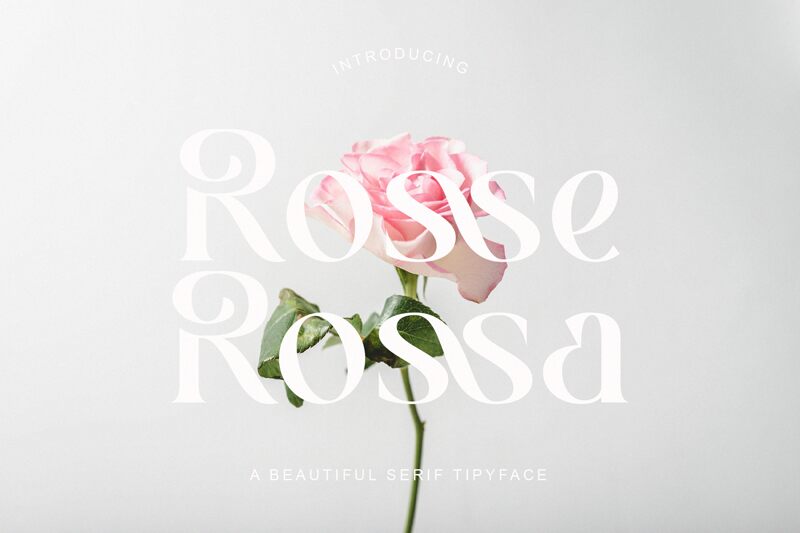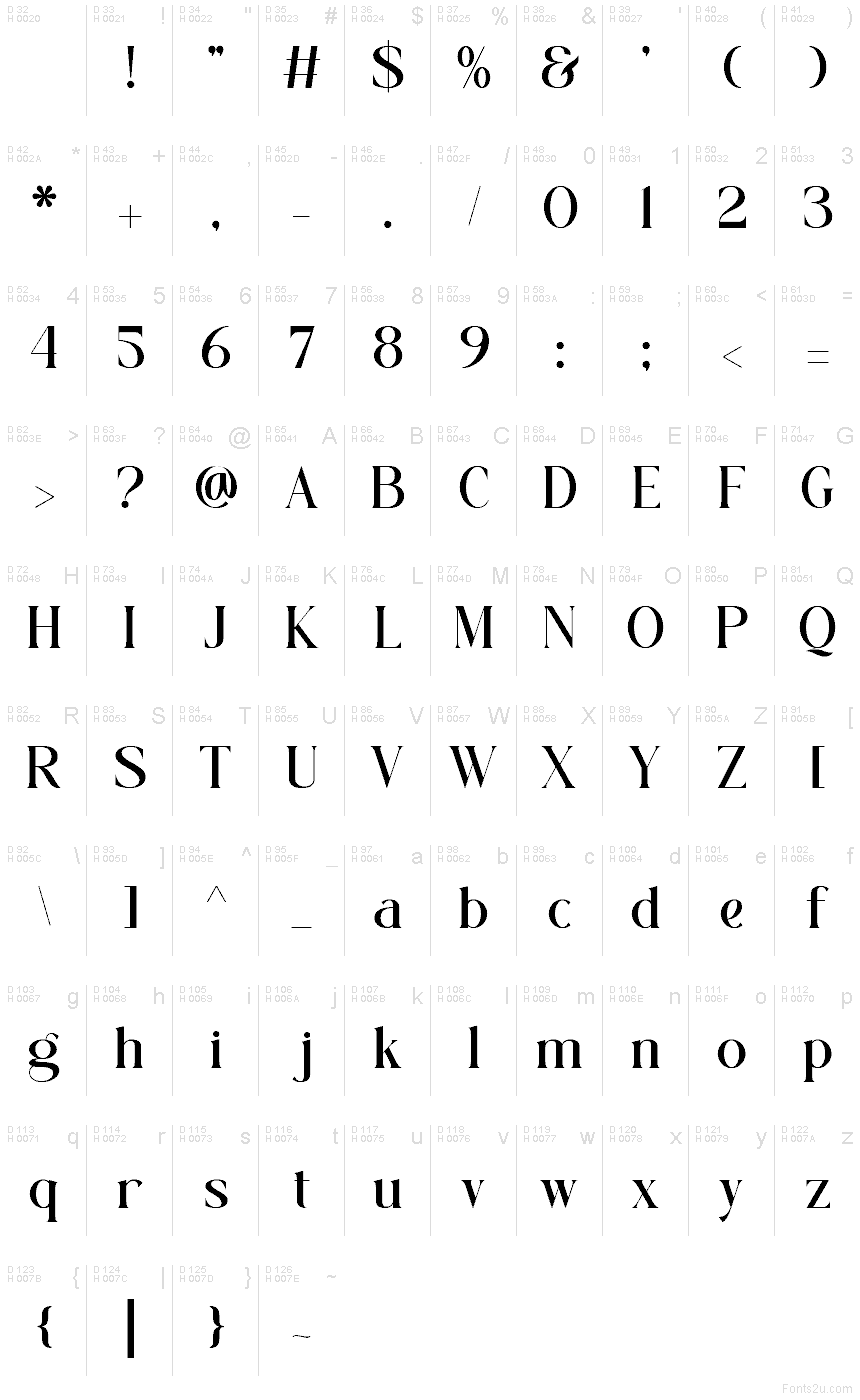
Rosse Rossa
Rosse Rossa font by Muflieart is a free serif typeface with a lush, sculpted rhythm—silky curves meet crisp, knife-edge details for a refined, editorial presence. Strokes swell and taper like ink pulled by a steady hand, giving headlines a poised, luxurious sway without feeling fussy. It carries a quiet drama that reads as modern couture rather than vintage nostalgia.
Using Rosse Rossa, you’ll get standout results on fashion branding, beauty packaging, wine labels, magazine covers, poster titles, and wedding stationery. The spacing feels tuned for larger settings, where its curves breathe and shine. Pair this free font with a clean geometric sans for body copy, and add a touch of letterspacing at big sizes to let the forms glow.